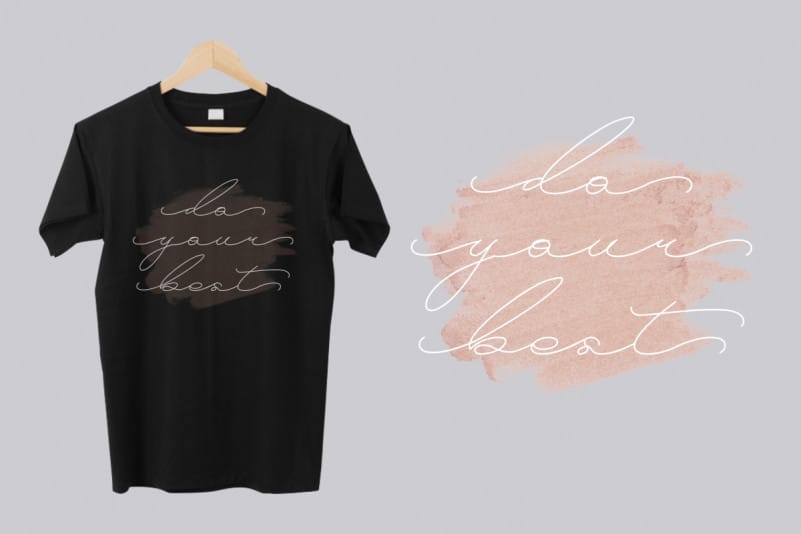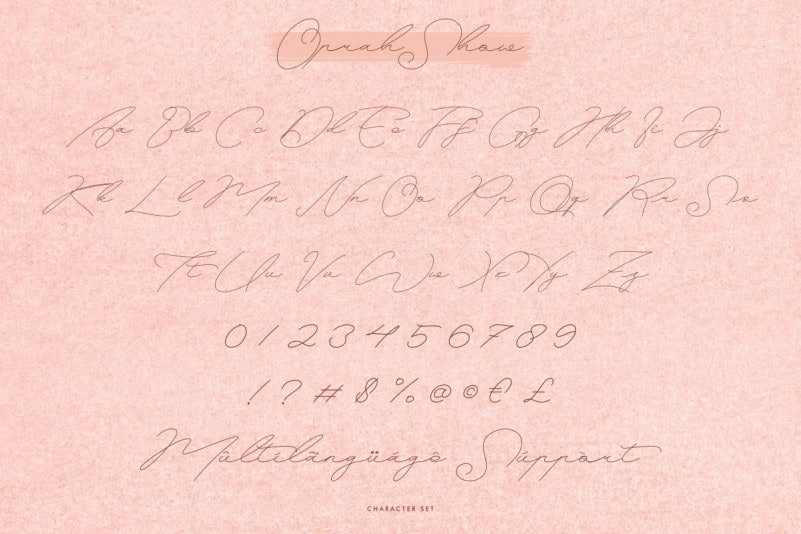
Oprah Show Signature Font
Oprah Show Signature Font is a signature handwriting script Font with elegant style. The theme of this font are casual, modern, elegant, luxury, handwritten, classic and simple lettering.